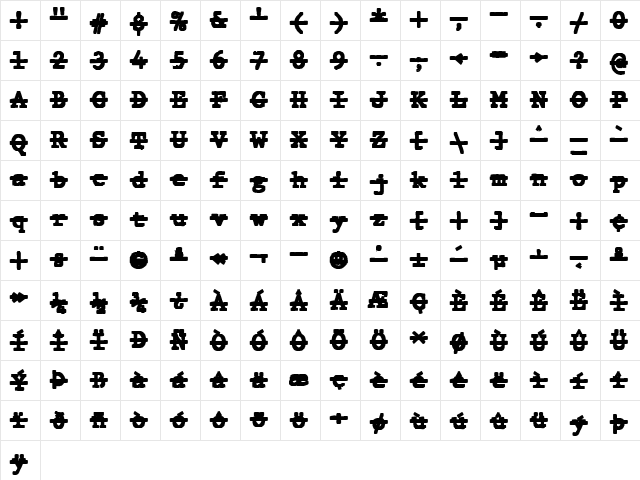
JMH Typewriter mono Black Over Regular
Design Context for JMH Typewriter mono Black Over Typeface
JMH Typewriter mono Black Over brings the precise, column-aligned rhythm of monospaced typography to designs that value technical clarity and systematic order.
A natural fit for code editors, technical documentation, developer-focused branding, and terminal-inspired UI.
Pro Tip: Pair JMH Typewriter mono Black Over with a proportional sans for UI contexts where code-style labels and regular body copy need to coexist.